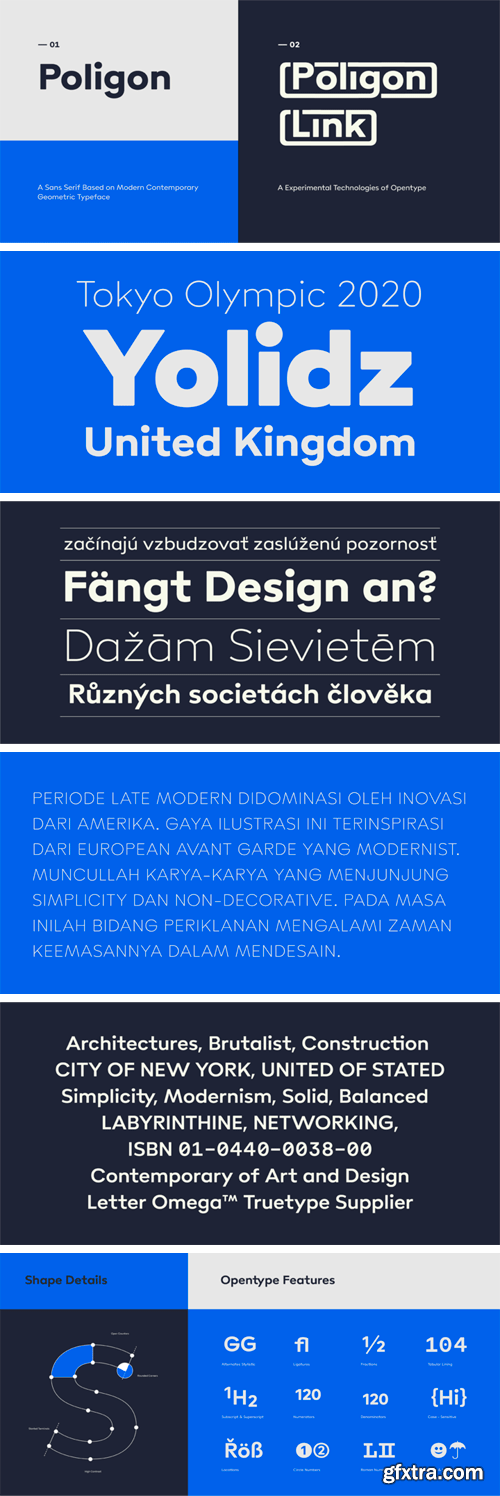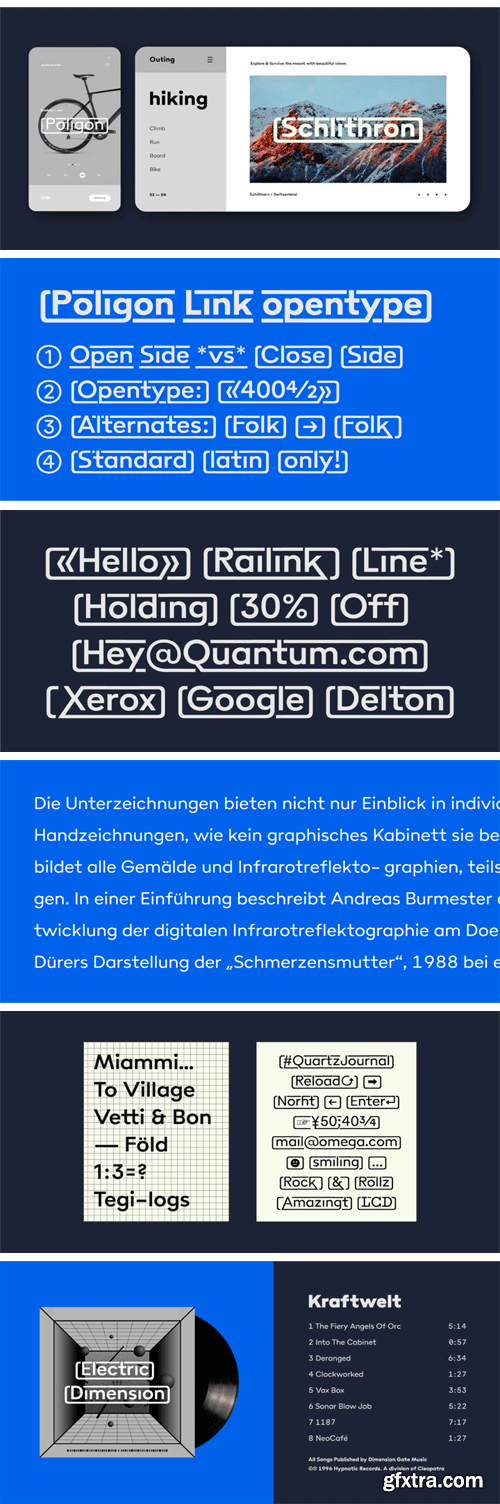
Poligon based on a geometric sans serif inspired form Avant Garde and Futura where shapes are constructed from circles and straight lines. The family features eight high-contrast weights, ranging from thin to Black each weight with matching italic cuts, Every character has been crafted to give it a distinctive and individual feel.??Poligon Link developed from standard form, where each bottom and top line will connect to each other, In addition the contextual alternates be able to use the open and close space. ??This font is very playful to combined with various kinds of media. works equally well both in large small text or in headlines.